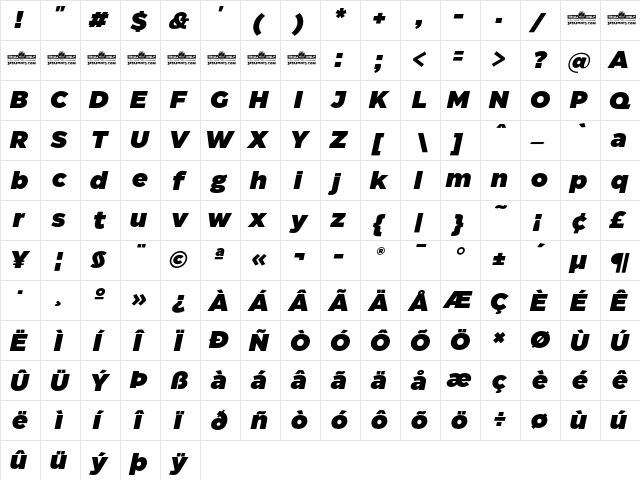
Eastman Trial Black Italic
| Foundry | Zetafonts |
| Designer | Francesco Canovaro |
Design Context for Eastman Trial Typeface
Eastman Trial takes a measured approach to typography — its balanced proportions and neutral character make it a reliable workhorse for both digital and print work. Its italic angle brings a sense of urgency and motion to the letterforms.